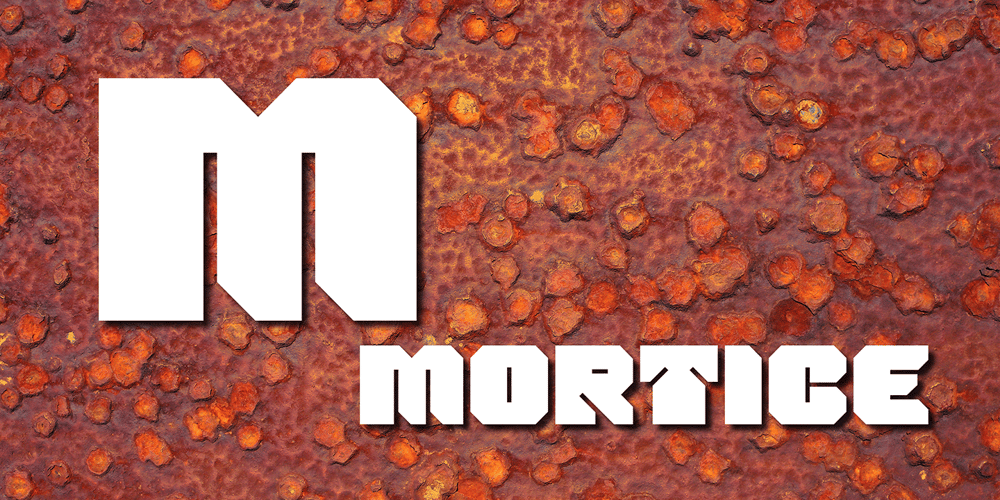
Mortice Font Family was designed by James Marsh and published by ArtyType. Mortice contains 1 styles and family package options. I set out to create a solid, bold, strong, rugged font, one that would lend itself to any industrial type of use, and by that I mean industry in general, but probably sectors that would still be considered male preserves such as carpentry or metalwork. I thought specifically of mortice & tenon joints, whilst toying with shape and form for this self imposed challenge. I was also visualizing a router tool used for producing most wood joints nowadays. I think the general premise worked out well; in the end I settled on the name Mortice, referring to the slots or negative spaces that the matching part, or tenon would fit into.